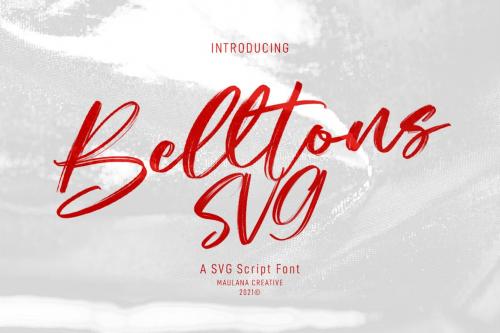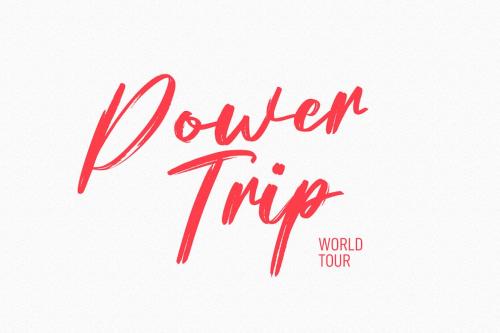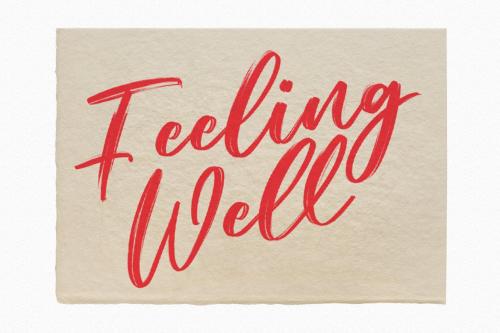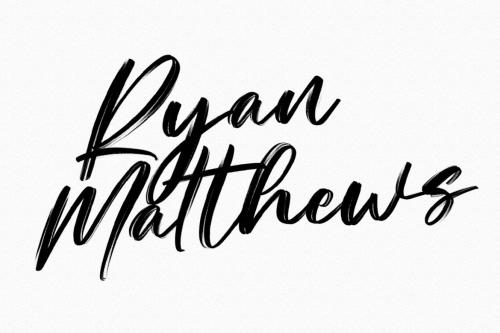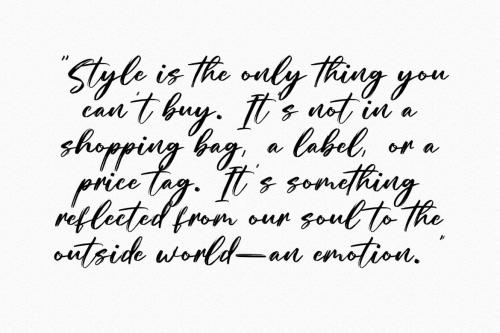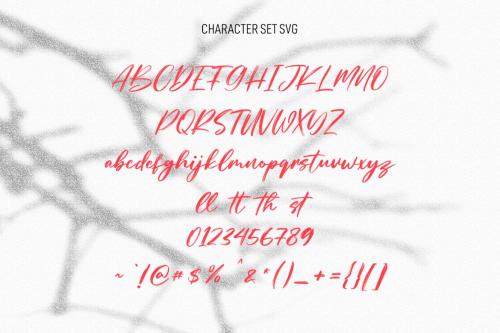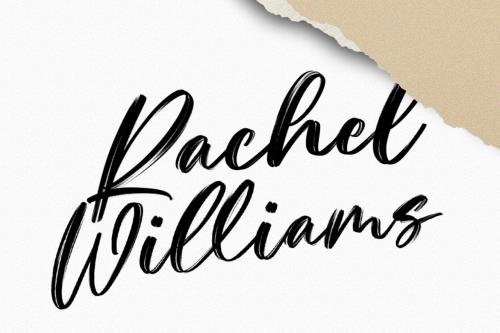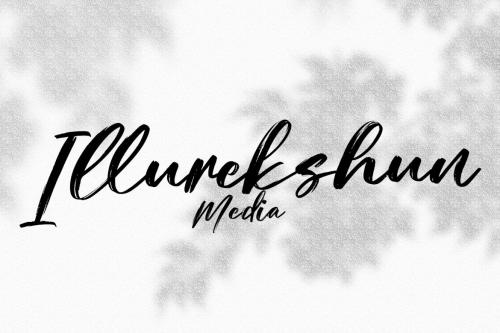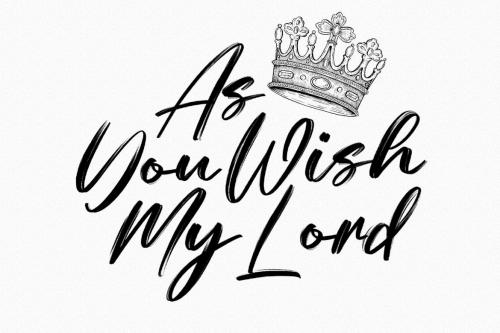
贝尔顿斯刷字体
Belltons Brush Font
Belltons is an fancy SVG script font. With rough brush stroke, slanted and fun character with a bit of ligatures and a bit lowercase alternate. To give you an extra creative work. Belltons SVG font support multilingual more than 100+ language. This font is good for logo design, Social media, Movie Titles, Books Titles, a short text even a long text letter and good for your secondary text font with sans or serif. Make a stunning work with Belltons SVG font.